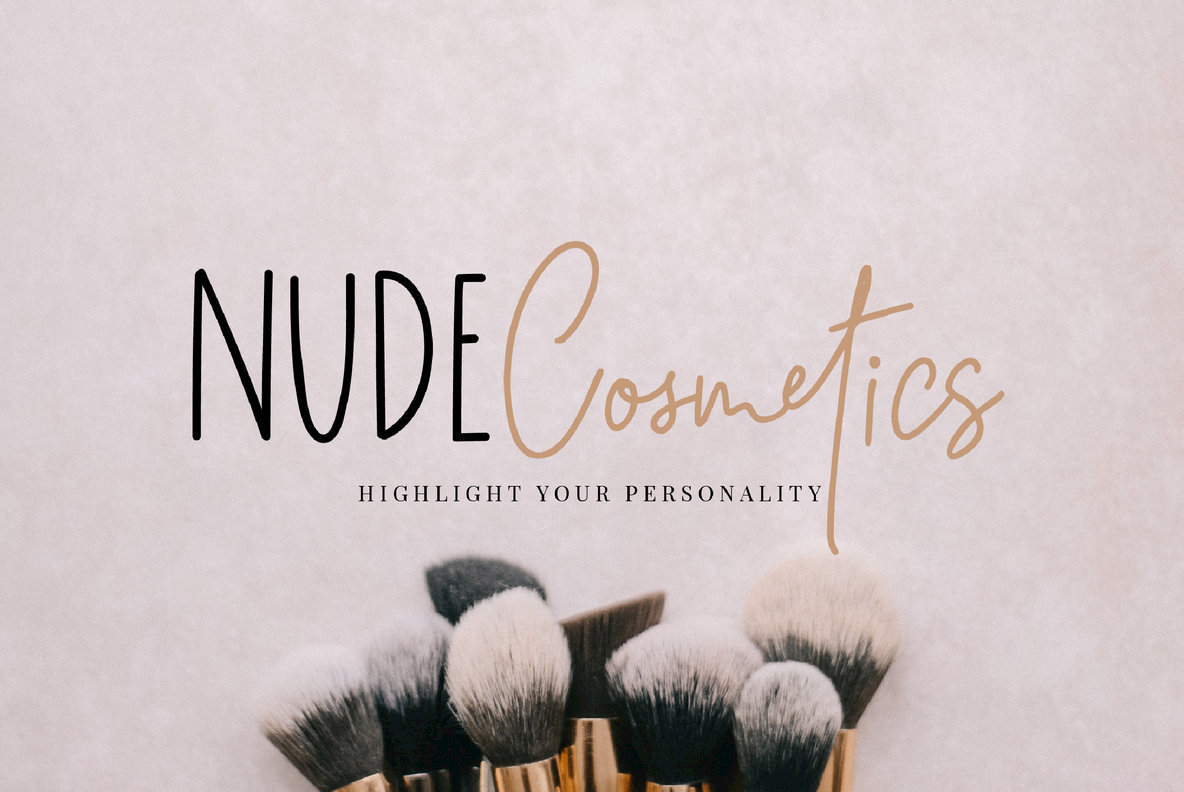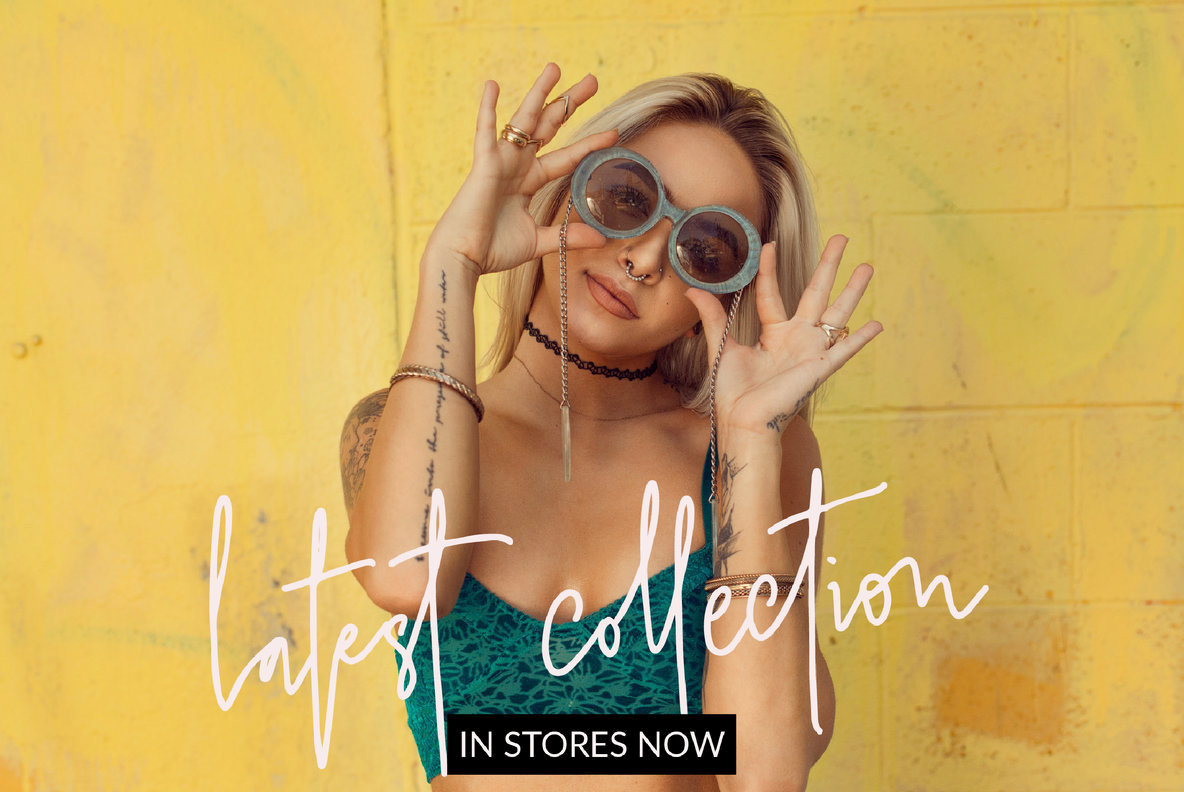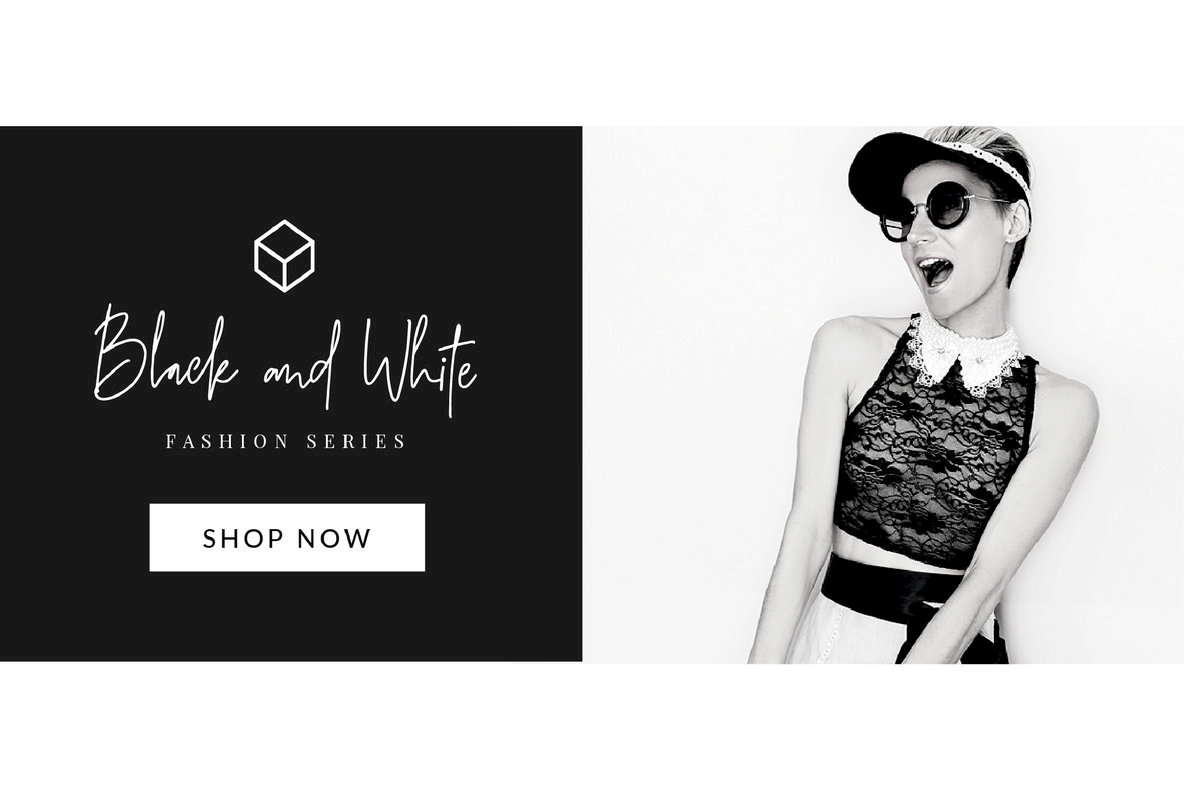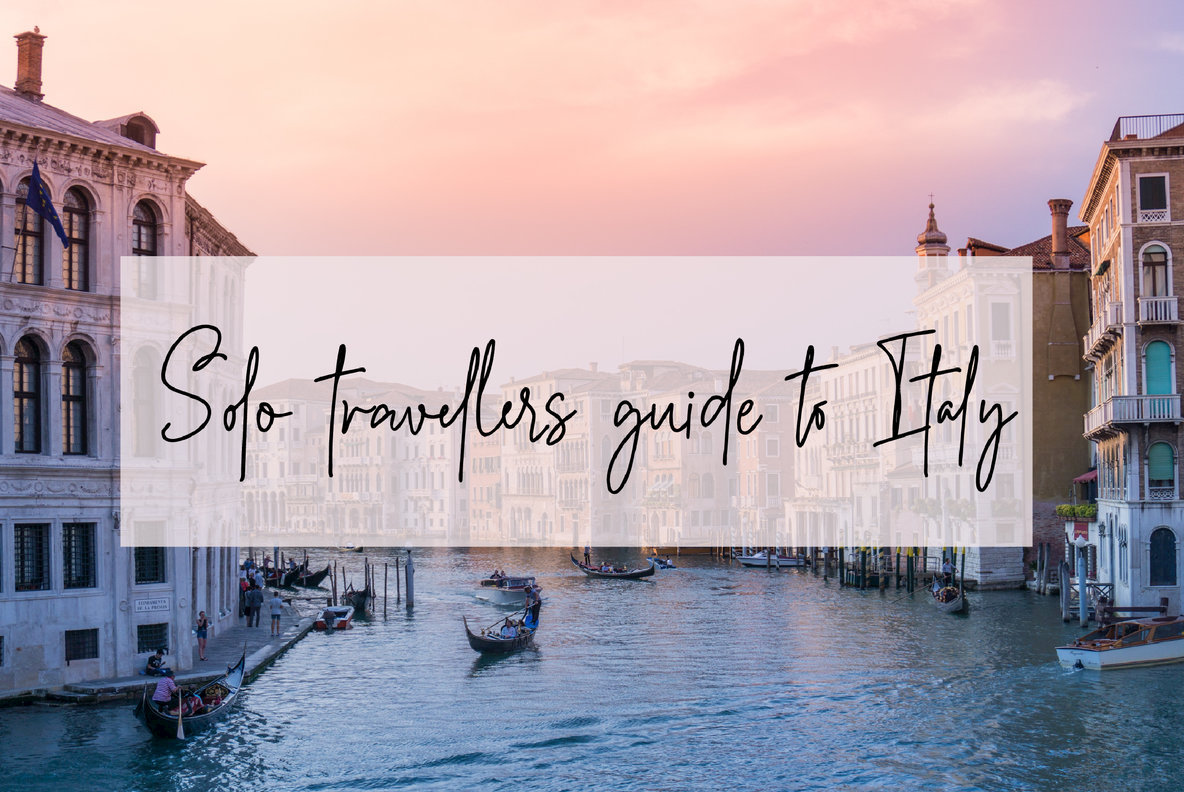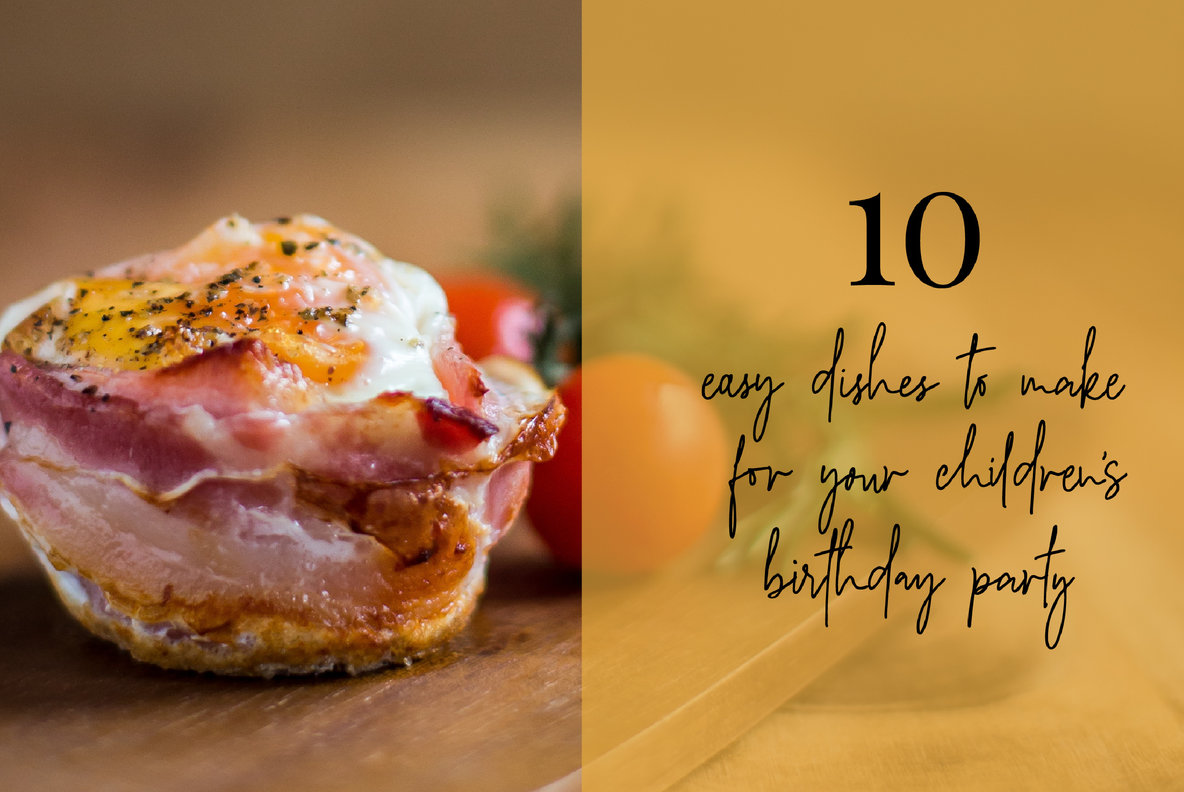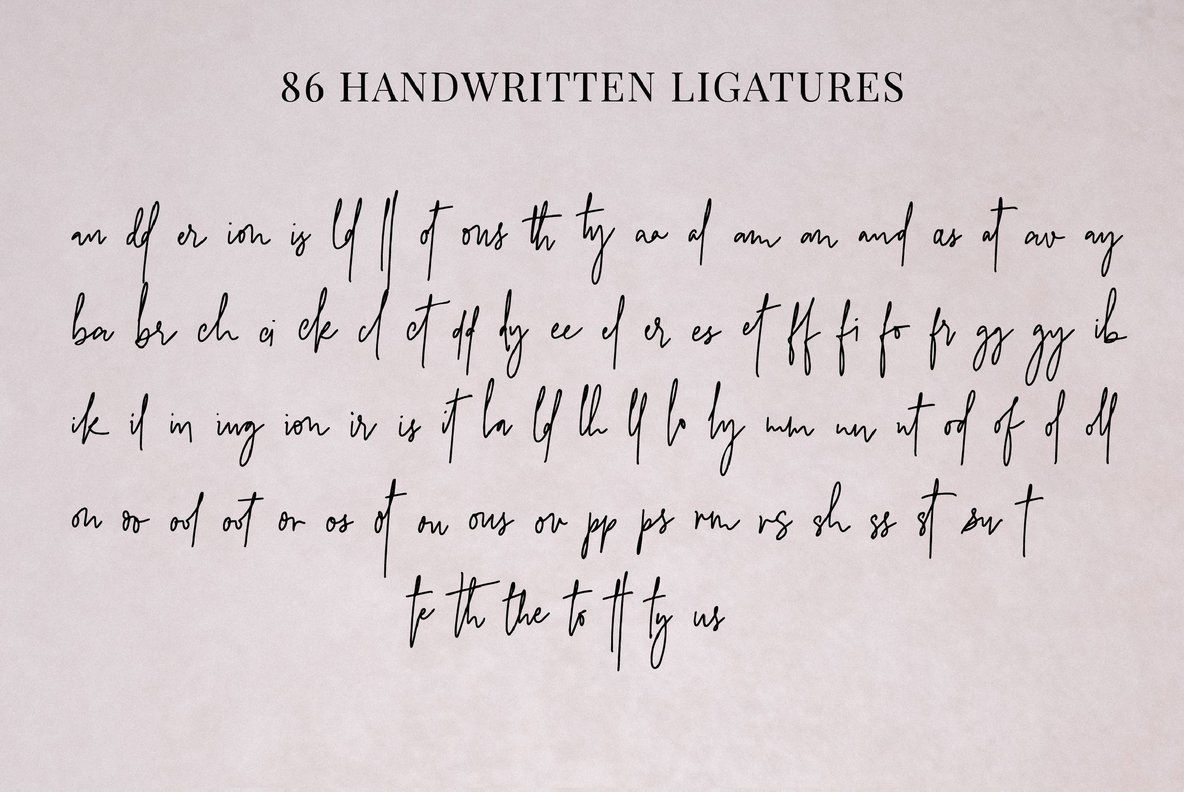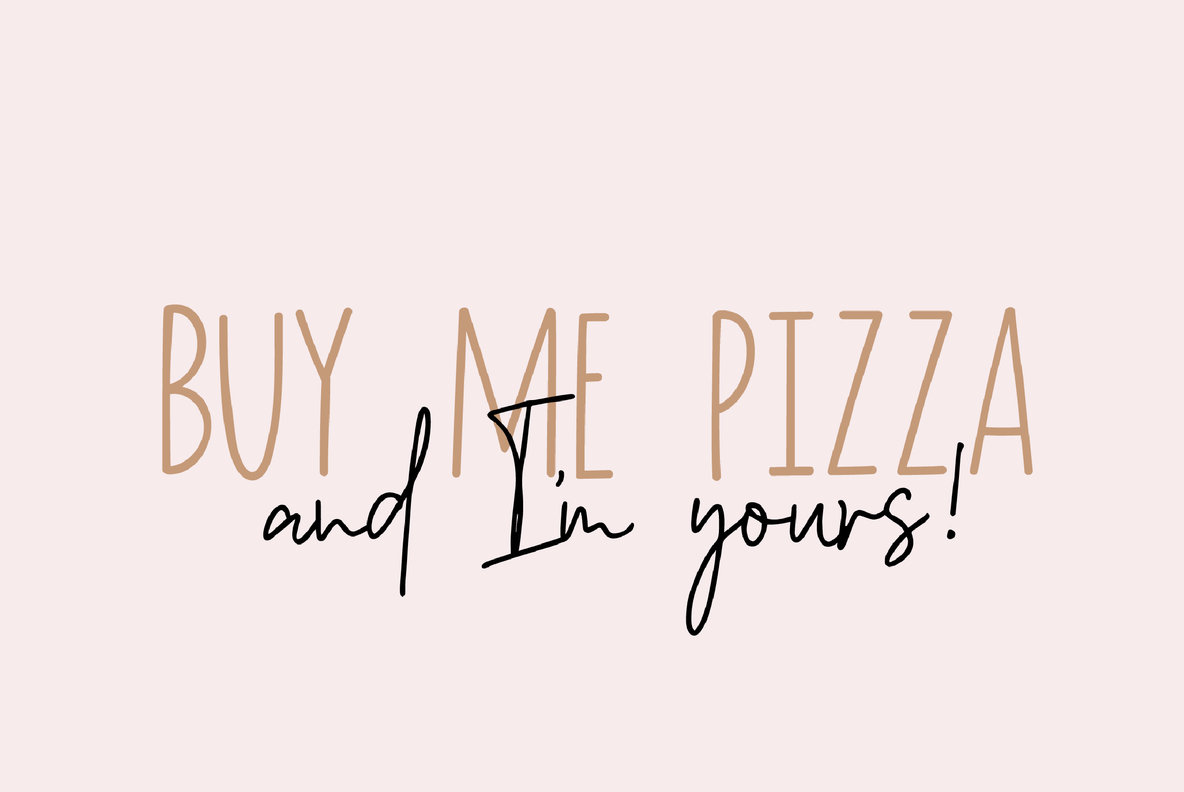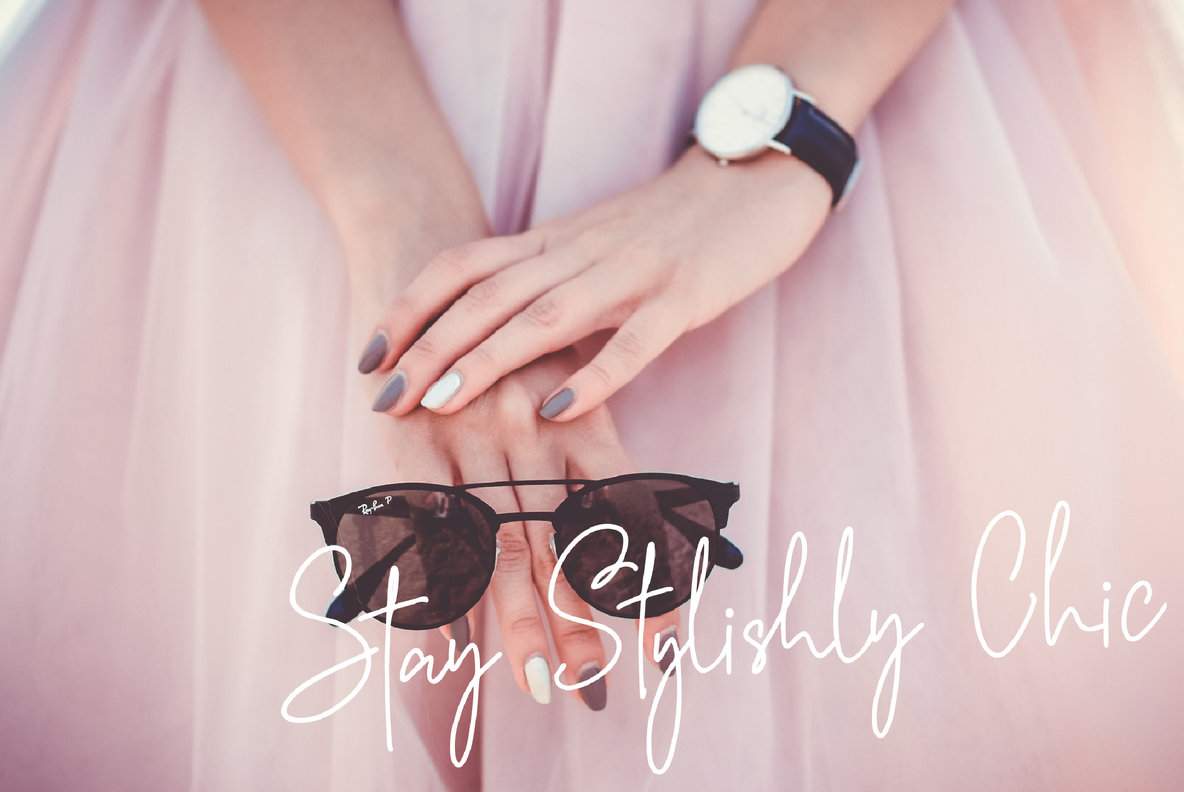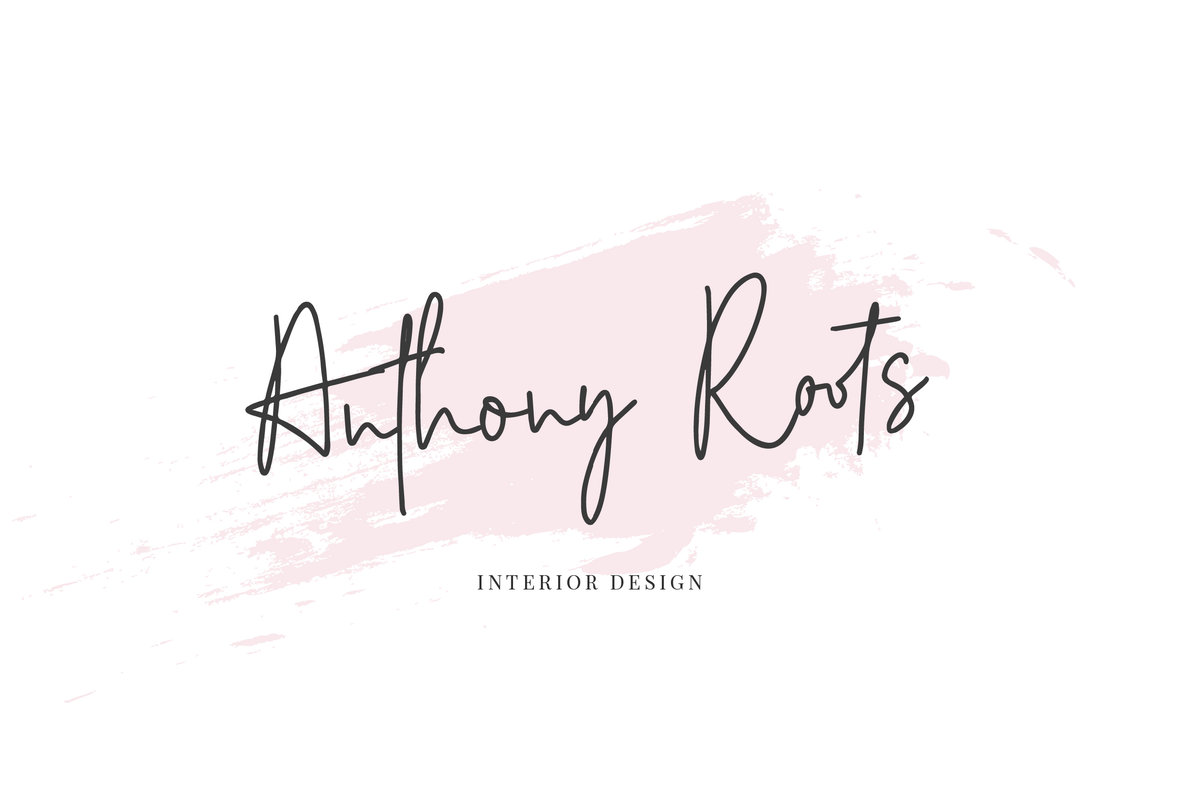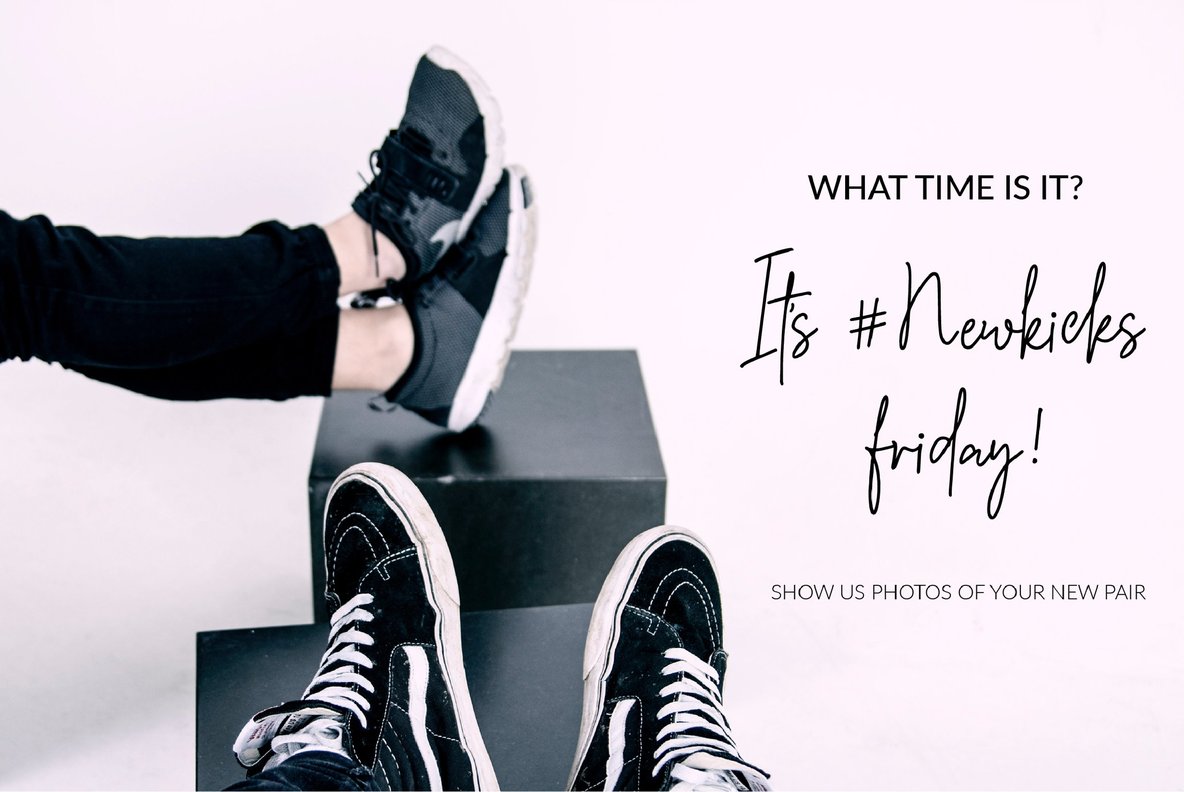
Simply Breathtaking Font Duo
Introducing Simply Breathtaking font duo, a pair of classy script and sans serif fonts. The Simply Breathtaking signature font comes with over 80 ligatures, and a full set of uppercase letters as well as a bunch of lowercase letters to make your lettering look as authentic as possible, making it ideal for wedding and event invites, product designs, branding, logos, advertisements, quotes, and so much more.
Simply Breathtaking Regular Font - The font contains all uppercase as well as lowercase letters, including the alternate letters as well as ligatures, numbers and punctuations and also has International Language Support included.
Simply Breathtaking Alt - This other version of the font contains a new set of uppercase letters.
Simply Breathtaking ligatures - Each letter from A-Z, a-z as well as numbers and punctuations contain a ligature for easy access.
Simply Breathtaking Sans - A monoline sans serif font to help you with pairing.